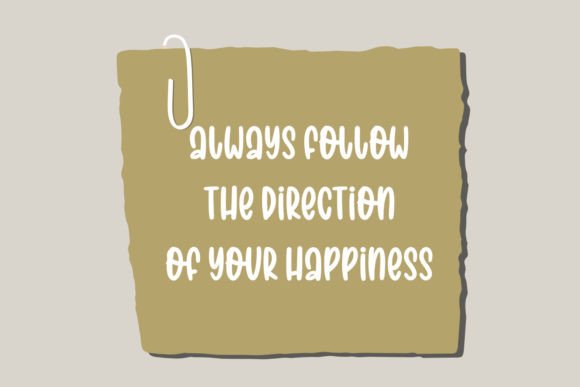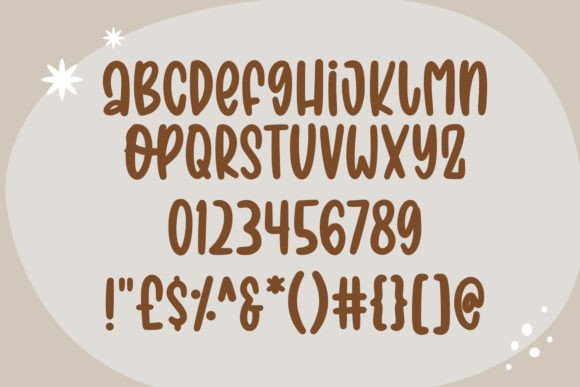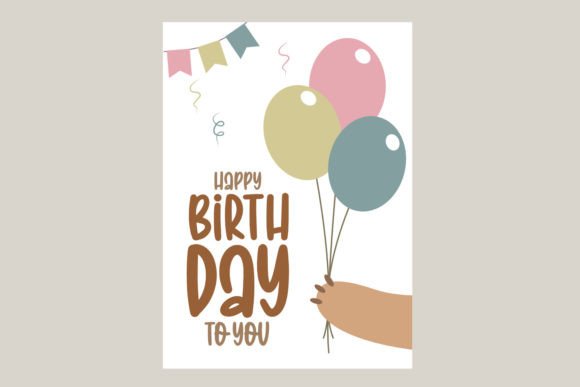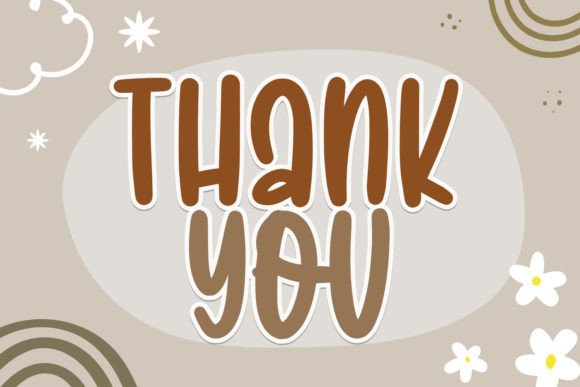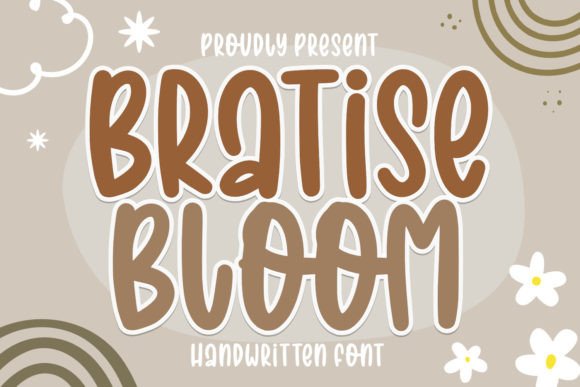
Bratise Bloom Font: The Ultimate Delight for Designers and Crafters
In the world of typography, fonts play a vital role in conveying the tone and personality of a design. For designers and crafters looking for a font that exudes a playful and adorable theme, Bratise Bloom is an excellent choice. This delightful handwritten font is designed to capture the essence of cuteness and add a touch of joy to any project.
The Unique Charm of Bratise Bloom
Bratise Bloom boasts a charming and whimsical design that sets it apart from other fonts. Its unique combination of a handwritten style and a clean sans-serif structure makes it perfect for designs that require a balance between fun and clarity. The font’s playful and adorable theme is sure to capture the attention of your audience and leave a lasting impression.
Key Features of Bratise Bloom
- Handwritten Style: Bratise Bloom’s handwritten style gives it a personal and friendly touch, making it ideal for designs that require a human touch.
- Clean Sans-Serif Structure: The font’s clean sans-serif structure provides clarity and readability, making it perfect for designs that require a balance between fun and professionalism.
- Playful and Adorable Theme: Bratise Bloom’s playful and adorable theme is sure to add a touch of joy and whimsy to any design.
- Unique Character Set: The font comes with a unique character set, including uppercase and lowercase letters, numbers, and punctuation marks.
Bratise Bloom is perfect for designers and crafters looking to add a touch of personality to their projects. Whether you’re designing a logo, creating a social media graphic, or crafting a handmade card, this font is sure to impress. Its versatility and unique charm make it an excellent choice for a wide range of design projects.
Use Cases for Bratise Bloom
- Branding and Logo Design: Use Bratise Bloom to create a playful and memorable logo that captures the essence of your brand.
- Social Media Graphics: Add a touch of personality to your social media graphics with Bratise Bloom’s playful and adorable theme.
- Handmade Crafts: Use Bratise Bloom to add a personal touch to your handmade crafts, such as cards, gift tags, and scrapbooking projects.
- Digital Art: Incorporate Bratise Bloom into your digital art projects, such as illustrations, animations, and web designs.
Tips for Using Bratise Bloom
- Experiment with Font Sizes: Play around with different font sizes to create visual interest and hierarchy in your design.
- Pair with Other Fonts: Pair Bratise Bloom with other fonts to create a unique and interesting contrast.
- Use in Combination with Images: Use Bratise Bloom in combination with images to add a touch of personality and whimsy to your design.
Bratise Bloom is a delightful handwritten font that is sure to capture the hearts of designers and crafters. Its unique combination of a handwritten style and a clean sans-serif structure makes it perfect for designs that require a balance between fun and clarity. With its playful and adorable theme, Bratise Bloom is an excellent choice for a wide range of design projects. So why not give it a try and add a touch of joy and whimsy to your next design project?